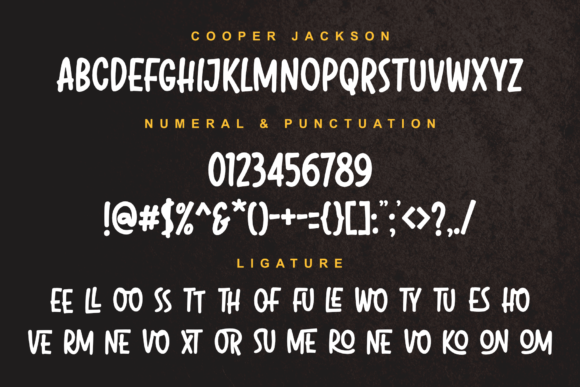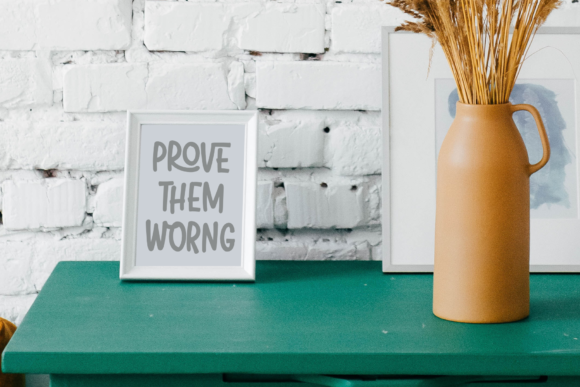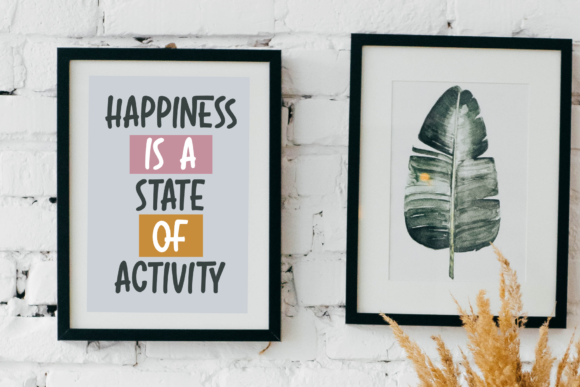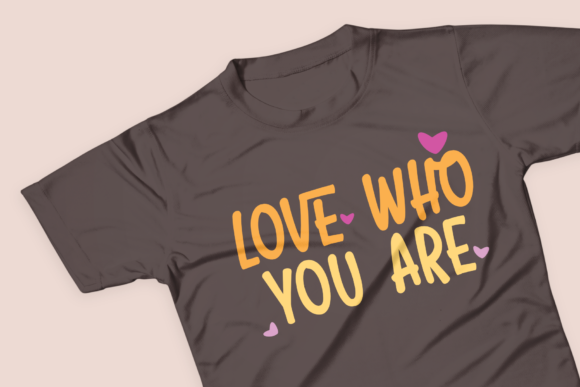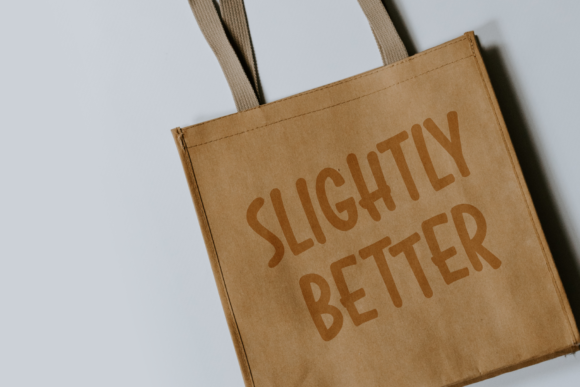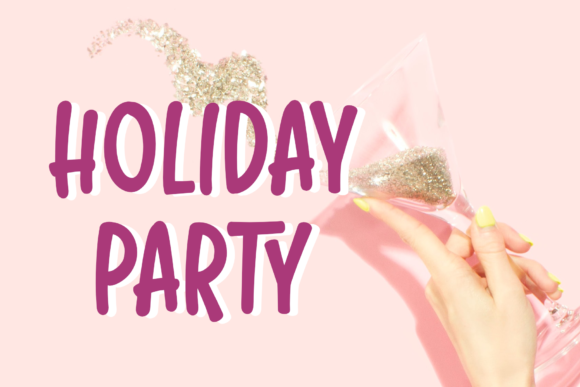
The Designer’s Delight: Cooper Jackson Font
I’ll never forget the moment I stumbled upon Cooper Jackson Font while working on a branding project for a trendy coffee shop. I had spent hours scouring font libraries, but nothing seemed quite right – until I saw Cooper Jackson. Its casual, friendly vibe instantly resonated with the shop’s laid-back atmosphere. I knew right then and there that I had found the perfect fit. If you’re a designer, crafter, or creative hobbyist looking for a versatile display font, you’re in luck! Cooper Jackson is here to elevate your creative projects.
- ✨ Friendly and approachable feel that’s perfect for a wide range of contexts
- ✅ Highly versatile and adaptable to different design styles
- 💡 Unique character that adds a touch of personality to any project
- 🎉 Easy to read and understand, even in large blocks of text
While Cooper Jackson is an excellent font, it’s not without its quirks. ⚠️ Some users may find that the font’s casual nature makes it less suitable for very formal or traditional designs. Additionally, 🤔 the font’s limited contrast between letters may make it more challenging to use in certain contexts, such as body text.
- Experiment with OpenType features, such as glyphs and stylistic alternates, to add visual interest to your text.
Cooper Jackson Font was designed with the intention of creating a friendly, approachable display font that could be used in a variety of contexts. The designer’s goal was to craft a font that felt like a warm hug – comforting and inviting. While the true story behind Cooper Jackson’s creation may be unknown, its design is undoubtedly inspired by a passion for creating beautiful, functional typography.
Q: What is Cooper Jackson Font?
A: Cooper Jackson Font is a casual and authentic display font designed for use in a wide range of creative projects.
Q: Is Cooper Jackson suitable for body text?
A: While Cooper Jackson is an excellent font, it may not be the best choice for body text due to its casual nature and limited contrast between letters.